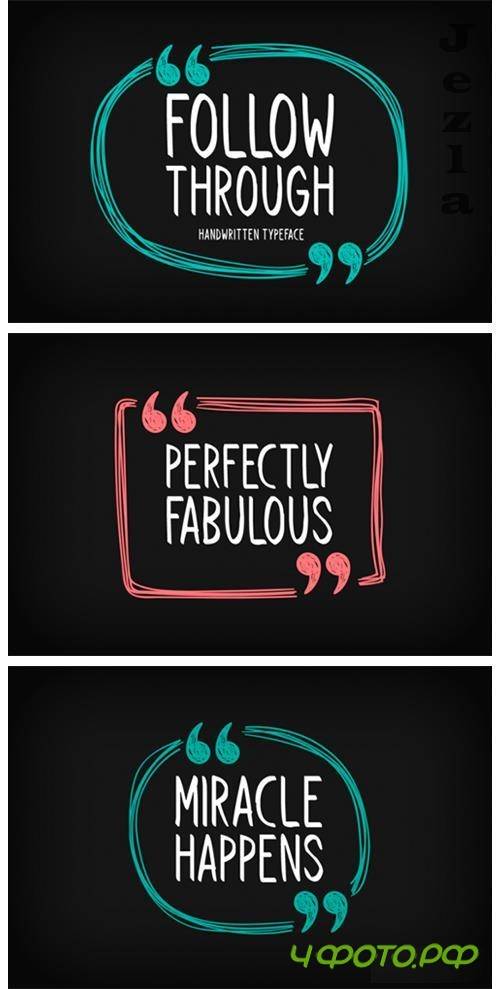
Follow Through Font
Follow Through feels equally charming and elegant. Whether you’re looking for fonts for Instagram or calligraphy scripts for DIY projects, this display font will turn any creative idea into a true piece of art!